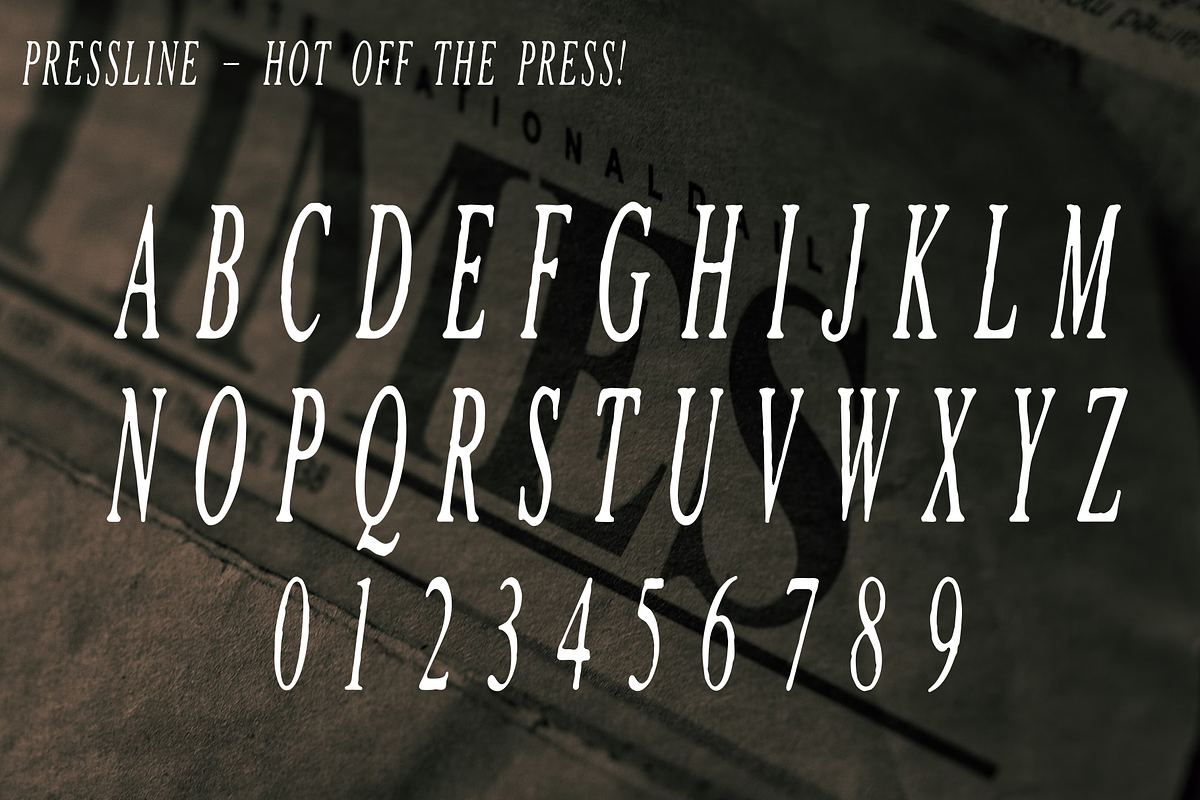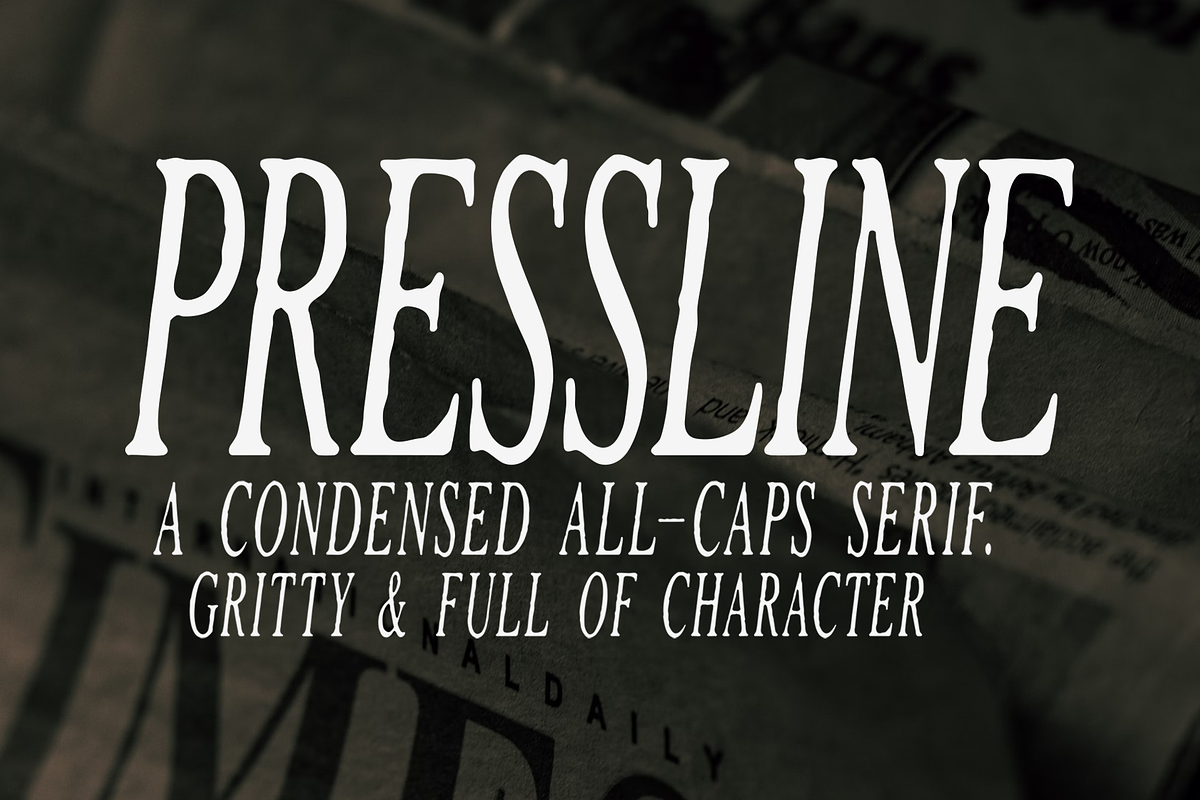
PRESSLINE - All-Caps Vintage Serif
Step back in time to the clattering newsrooms of the 1910s with Pressline Italic, a tall, condensed, all-caps serif typeface that embodies the grit and glory of early 20th-century journalism. Handcrafted with a vintage soul, this font features sharp italic slants, delicate serifs, and a textured, bumpy-edge finish—mimicking the worn ink and rough newsprint of a bygone era. Perfect for designers seeking to infuse their projects with authentic historical flair, Pressline Italic is your go-to for bold headlines, nostalgic branding, and timeless editorial design.
Key Features: -Vintage Aesthetic: Inspired by 1910s newspaper mastheads, with a distressed texture that evokes the imperfections of letterpress printing. -Tall & Condensed: Maximizes space while delivering striking visual impact—ideal for tight layouts or eye-catching headers. -Italic Elegance: The slanted design adds urgency and movement, perfect for subheads or standout titles. -All-Caps Glory: Designed for bold statements, with a cohesive uppercase set that shines in every application. -Includes OTF file for seamless use across design software.
Perfect For: -Editorial Design: Elevate magazine spreads or book covers with a journalistic edge (think historical fiction or noir thrillers). -Branding: Create logos or packaging with a retro vibe—imagine a speakeasy menu or craft beer label. -Posters & Invitations: Add drama to event flyers, wedding invites, or vintage-style ads. -Creative Projects: Ideal for anything needing a touch of history, from film titles to artisanal product labels.